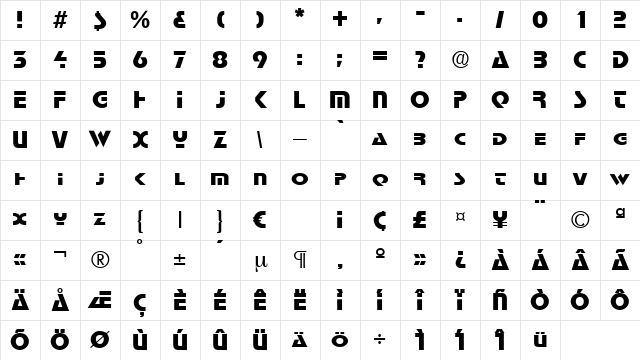
Design Context for StopRegular
StopRegular is a composed and adaptable typeface that performs quietly and consistently across a wide range of design contexts.
Pro Tip: Use StopRegular in both headline and body roles to test its range before committing to a single application.